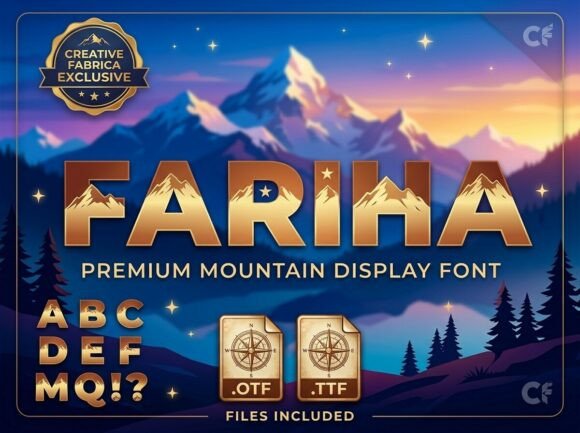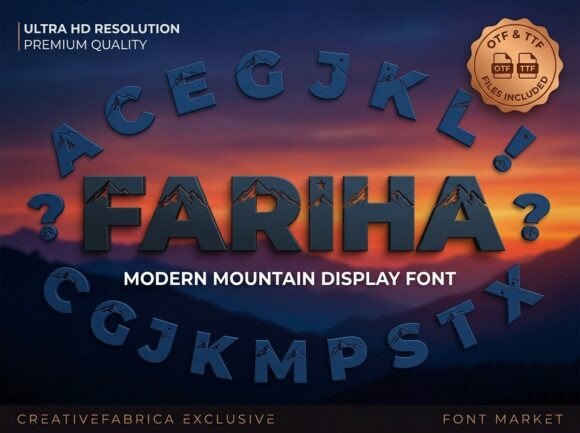
Introduction to Fariha Font Font
Fonts play a crucial role in design, and the Fariha Font font is a typeface that brings both character and versatility to any project. Whether you’re working on a branding project, a website, or a print design, the Fariha Font font offers a unique style that can elevate your work.
Reach new creative heights with Fariha, a bold display font designed for the modern explorer.
Each character serves as a window to the wilderness, featuring high-definition mountain silhouettes set against a stunning celestial “milky way” gradient Fariha is the definitive choice for outdoor apparel branding, travel posters, adventure-themed logos, and cinematic social media content.
Key Features of Fariha Font Font
Why Choose Fariha Font Font?
The Fariha Font font is more than just a typeface – it’s a design tool that helps you communicate your message with style and clarity. Its unique character set and versatile design make it suitable for a wide range of applications, from elegant invitations to bold headlines.
With its carefully crafted letterforms and balanced proportions, the Fariha Font font ensures readability and visual appeal across all mediums.
What makes Fariha Font font special?
The Fariha Font font stands out with its unique design, exceptional readability, and versatility across various design applications.